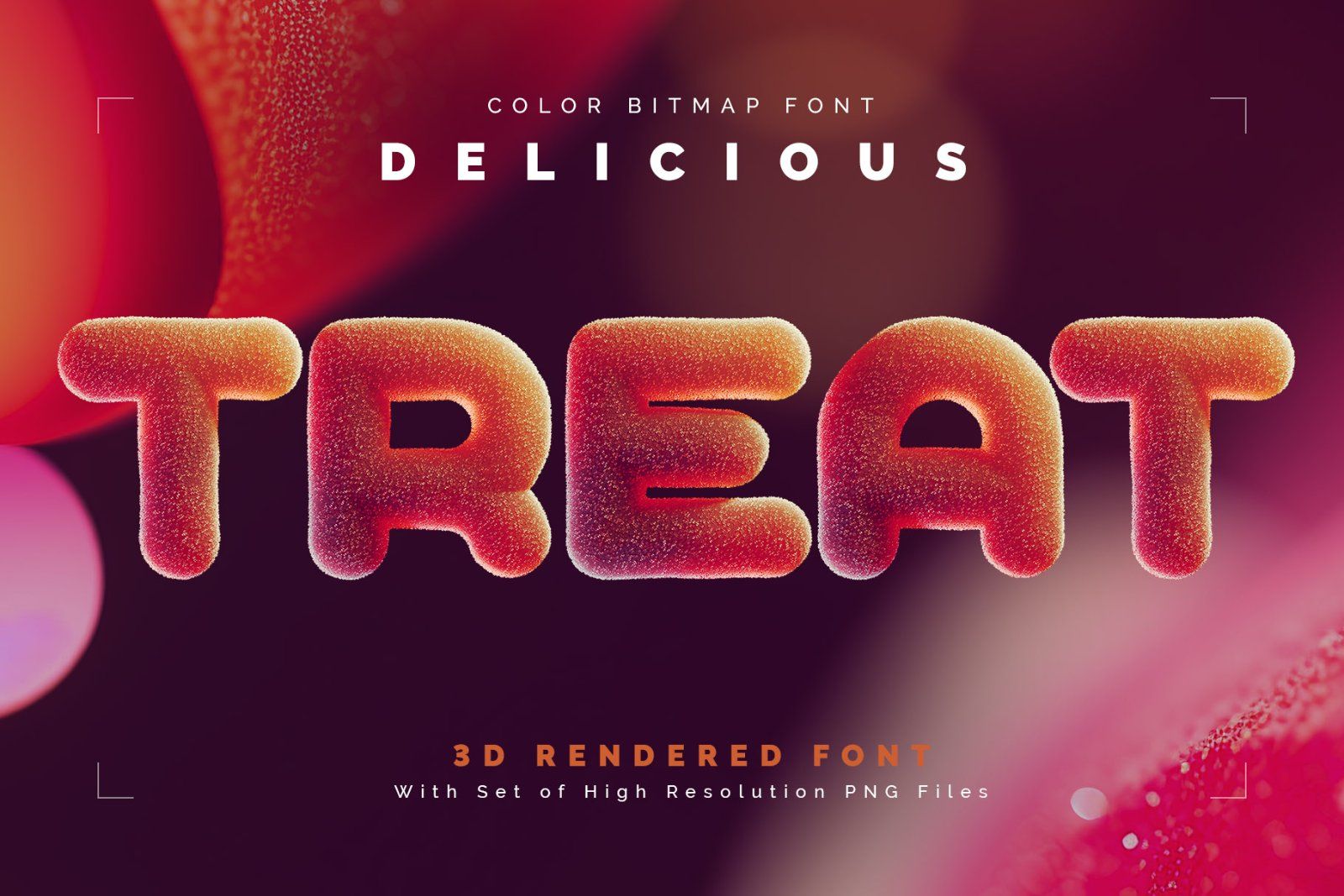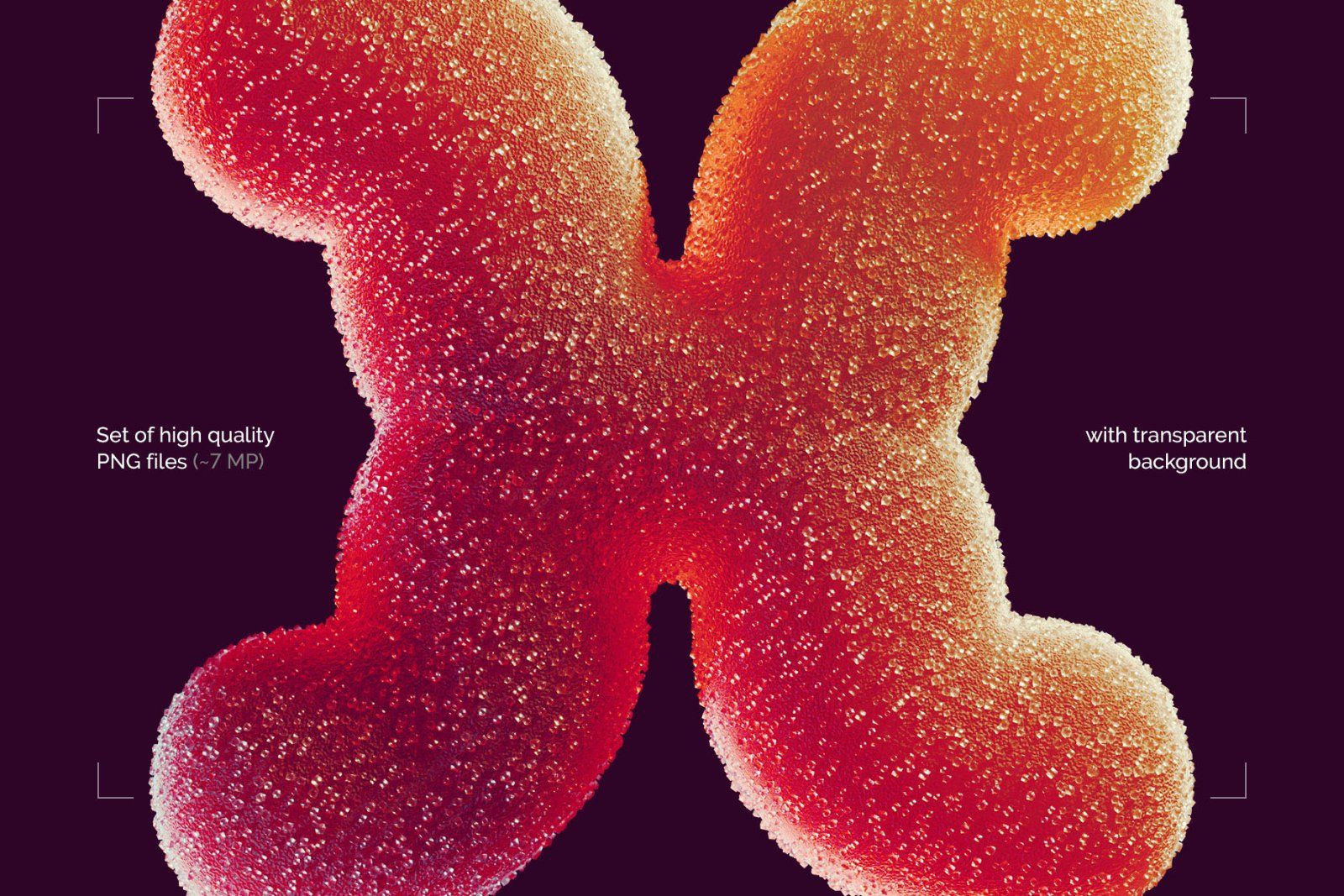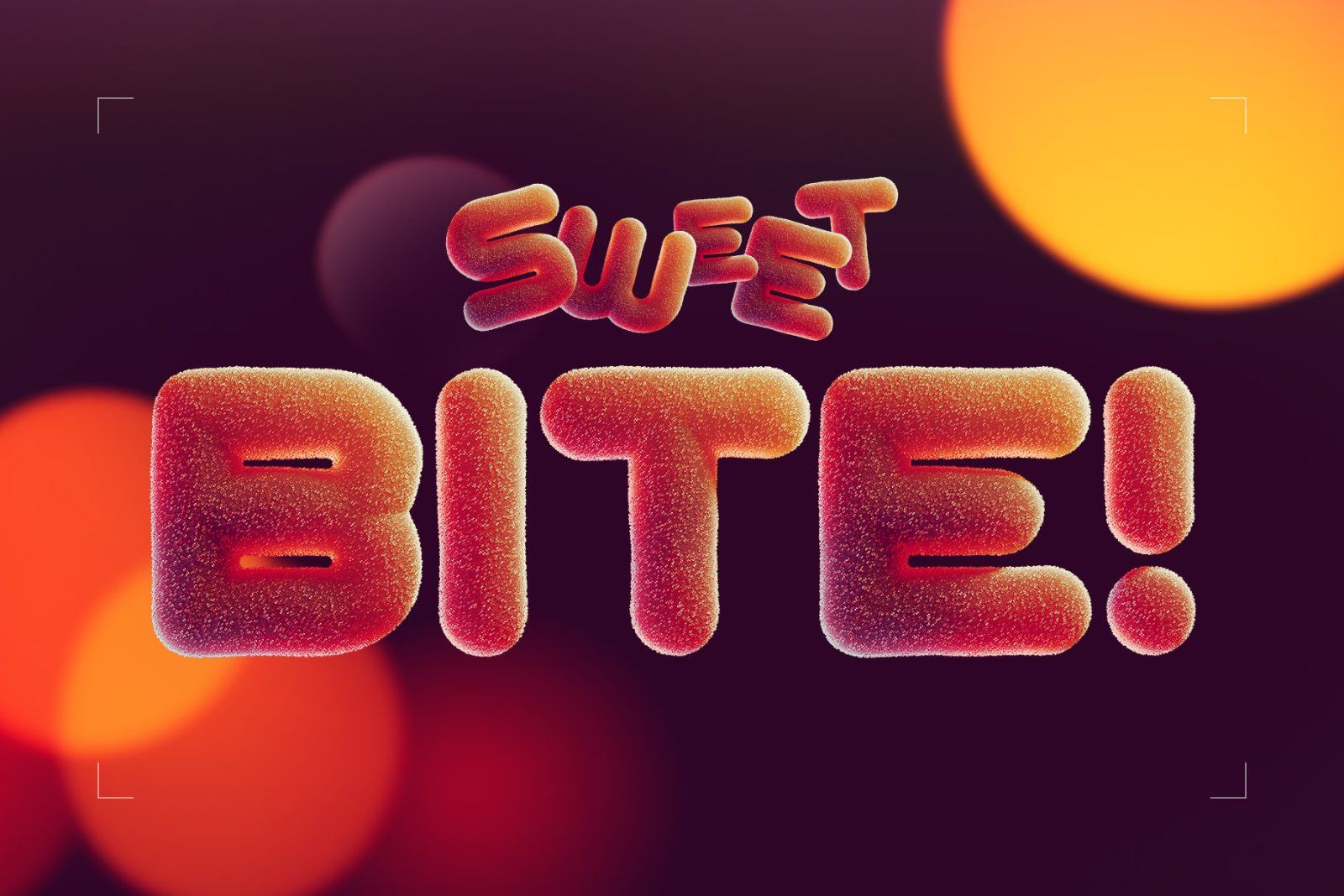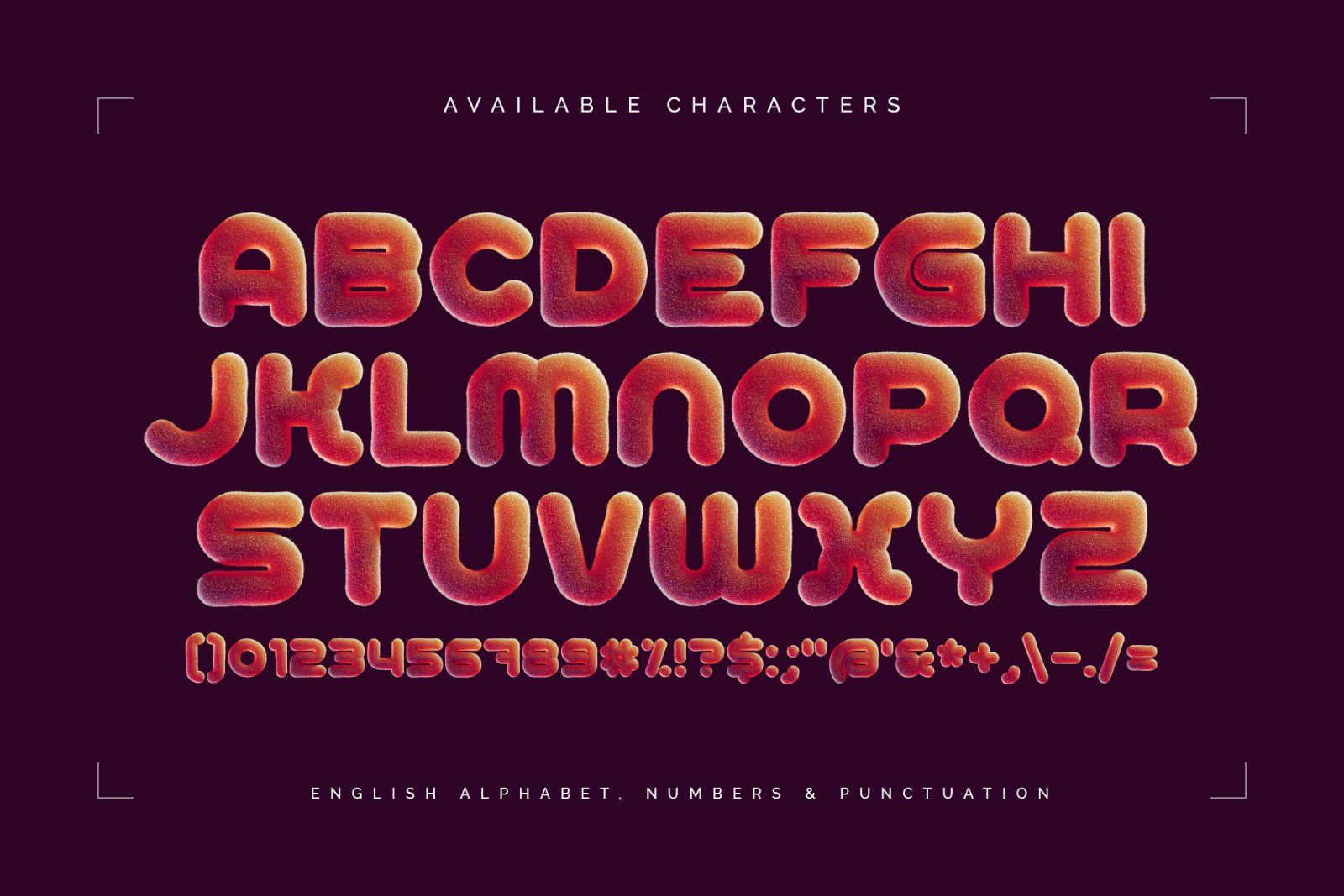
Hello! Presenting a creative sweet font set – Delicious Treat. It's a 3d rendered high quality typeface made in shape of jelly candy covered with sugar. First of all it's a color bitmap OpenType-SVG font that can be used as a usual OTF font. Also a set of full resolution PNG files with transparent background is included (Average resolution is 7 megapixels). Consider that only English language and basic punctuation is supported, please check out the screenshot with all available characters.